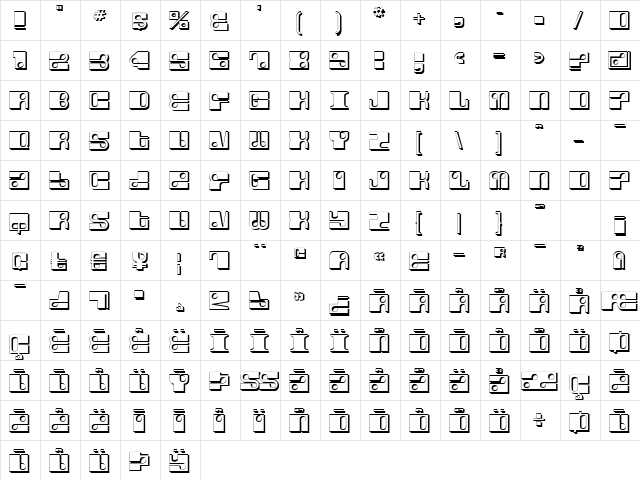
Fore Shadow
Design Context for Fore Typeface
Fore is built around its visual character rather than neutral utility — its distinctive forms are designed to make an impression at display sizes.
Font Pairing: Pair with a clean neutral sans-serif for body copy to let Fore's character lead without overwhelming the composition.
Pro Tip: Use Fore exclusively at display sizes — it was designed to be seen, not read at length. Let a neutral companion handle body copy.